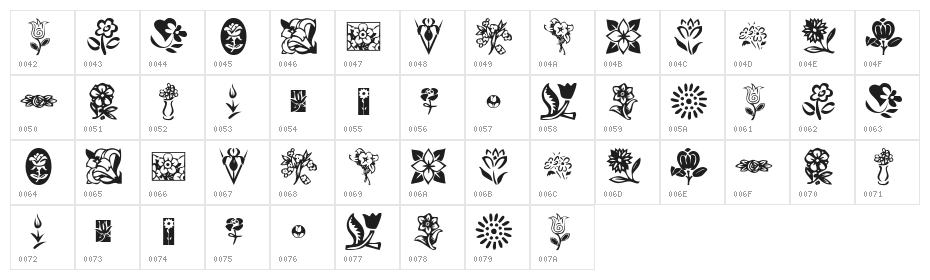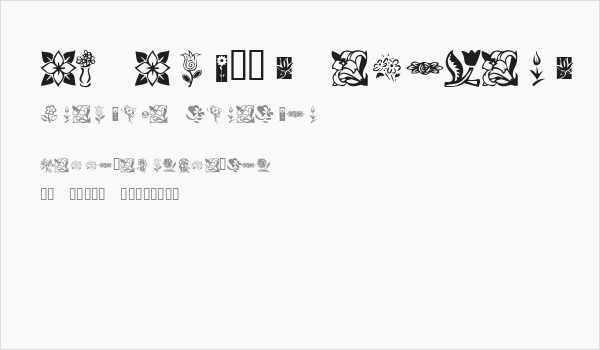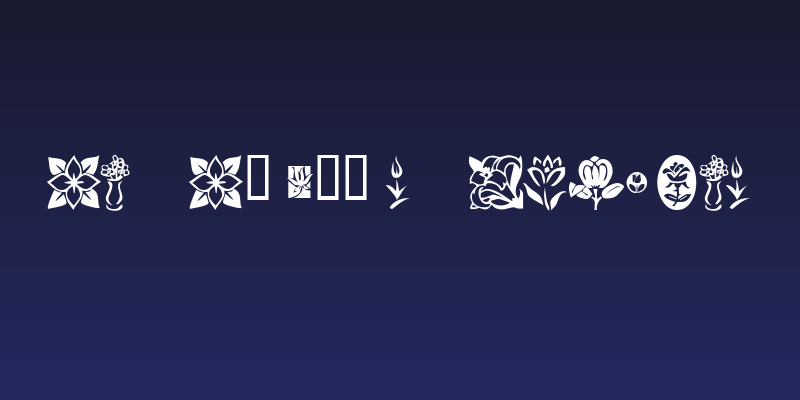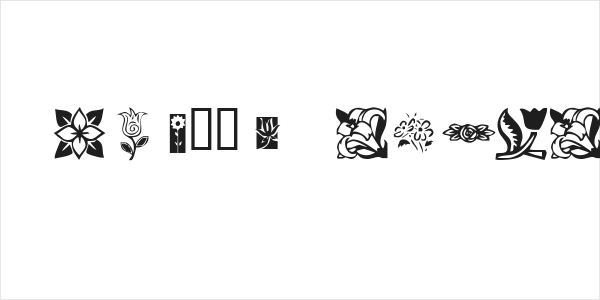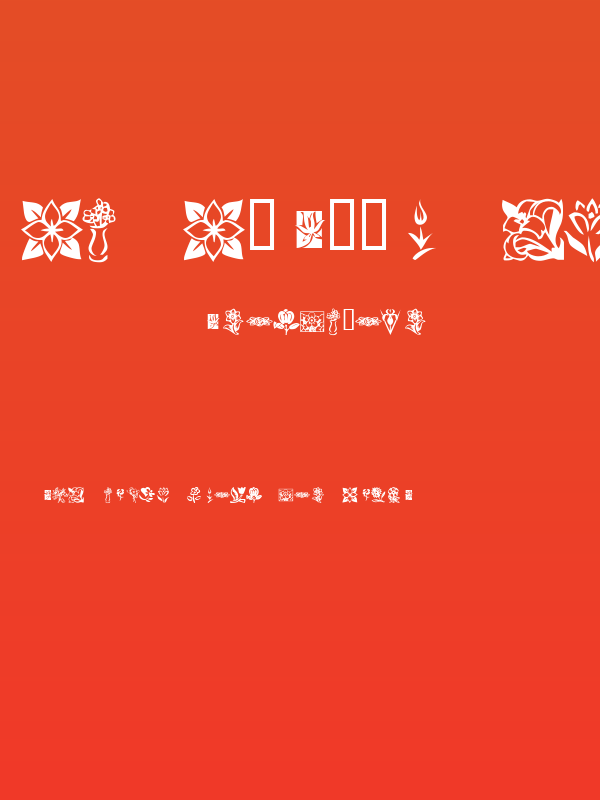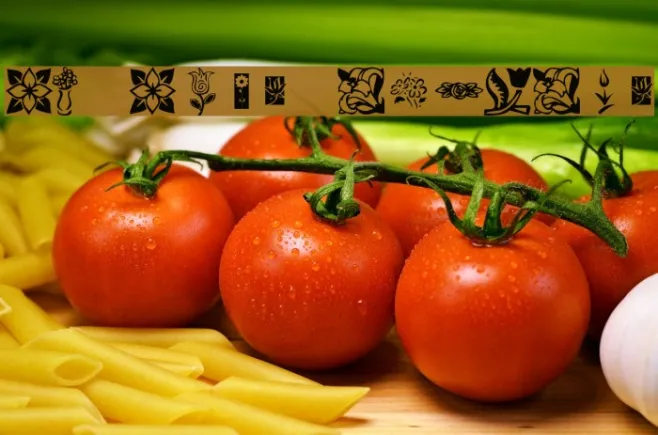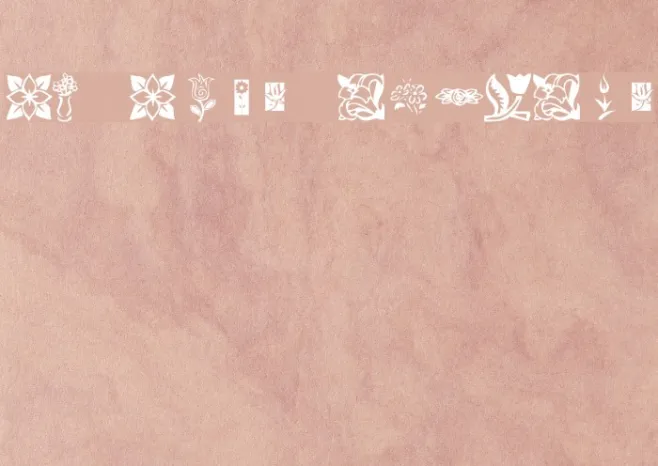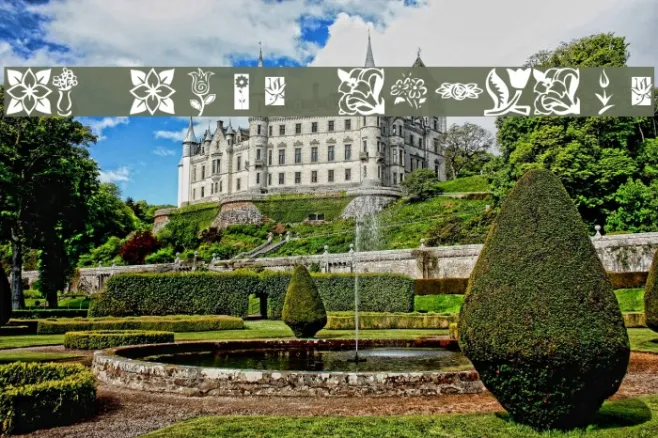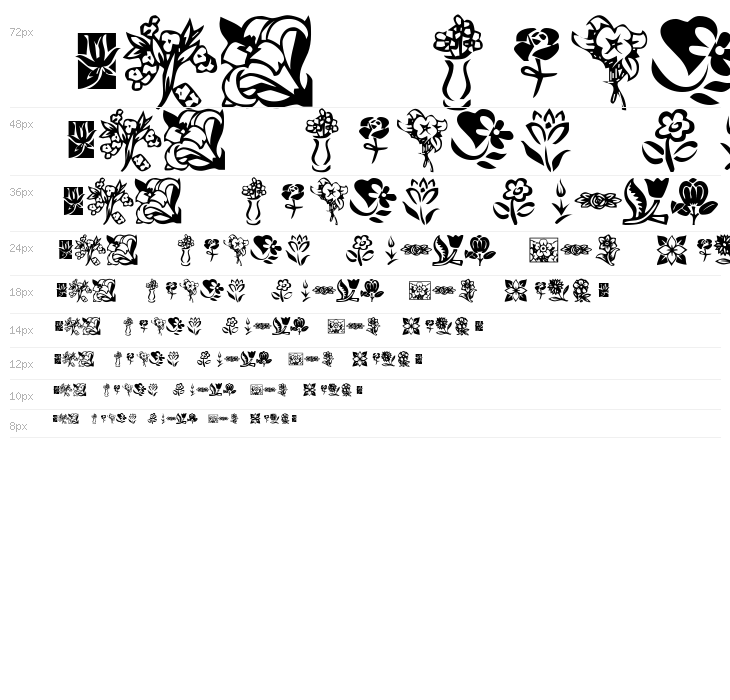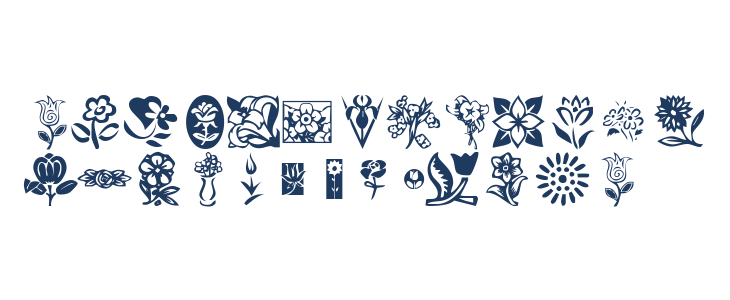
KR Kat's Flowers Font
KR Kat's Flowers Description
A decorative dingbat font featuring a variety of stylized floral and botanical illustrations, including flowers, leaves, and vases, rendered in bold black and white silhouettes with intricate detailing.
| Overall Style | Decorative, Ornamental |
| Use Case | Decorative elements, embellishments, icons |
| Proposed Projects | Invitations, greeting cards, scrapbooking, decorative borders, packaging, digital stickers, and craft projects. |